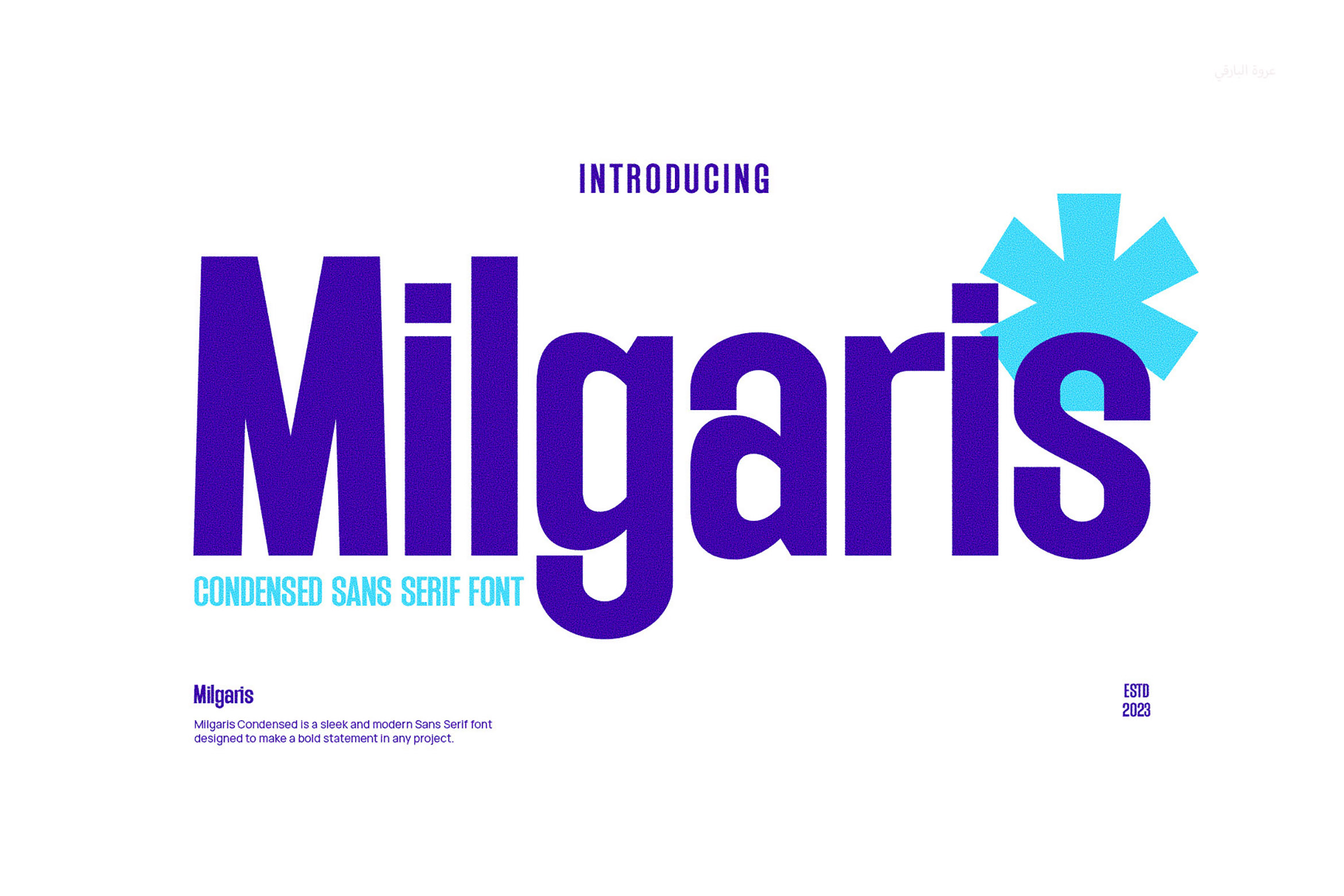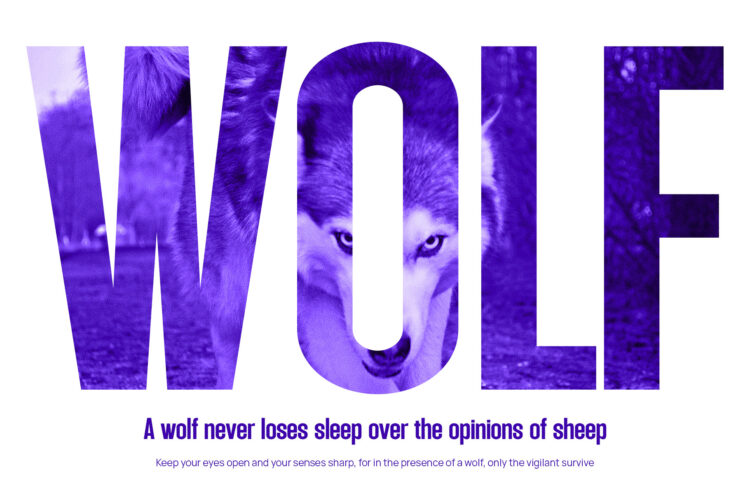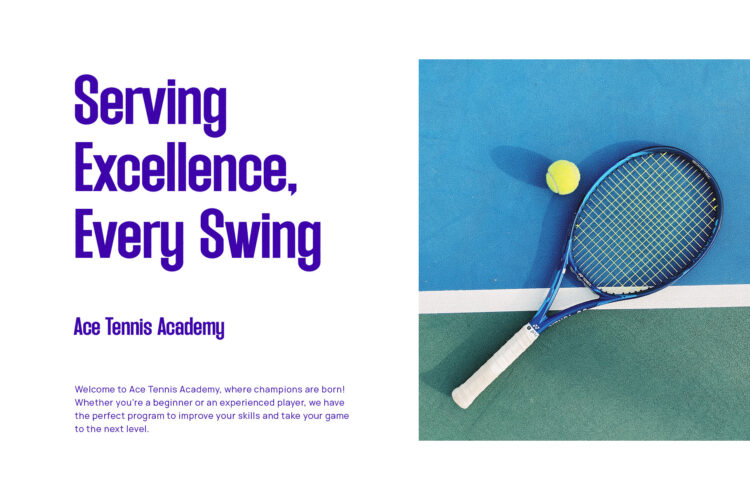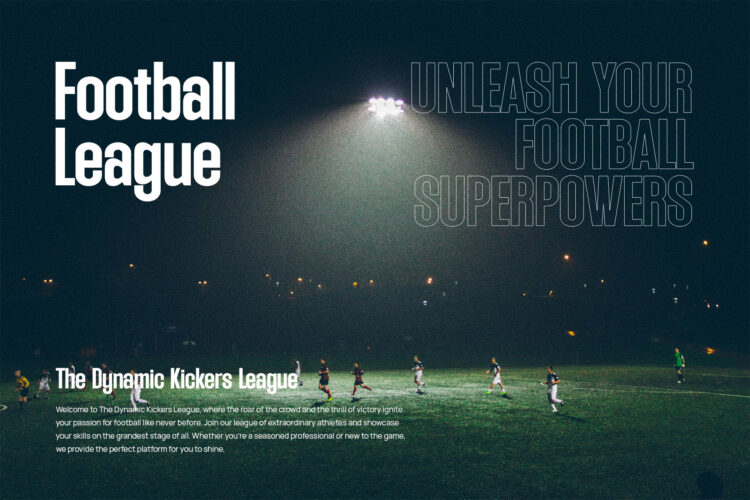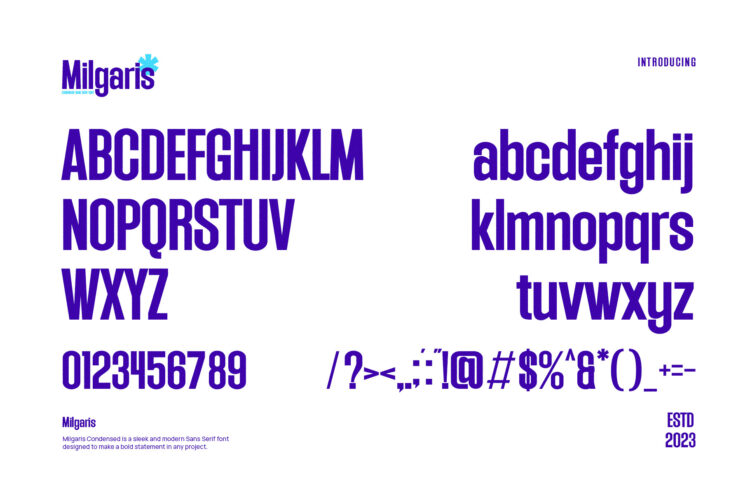
Introducing our new Milgaris, modern sans serif font with elegant style this is perfect for branding, logos, invitation, magazines, product packaging and more.
Milgaris – Modern Condensed Sans Serif
Milgaris - Modern Condensed Sans Serif
Milgaris – Modern Condensed Sans Serif